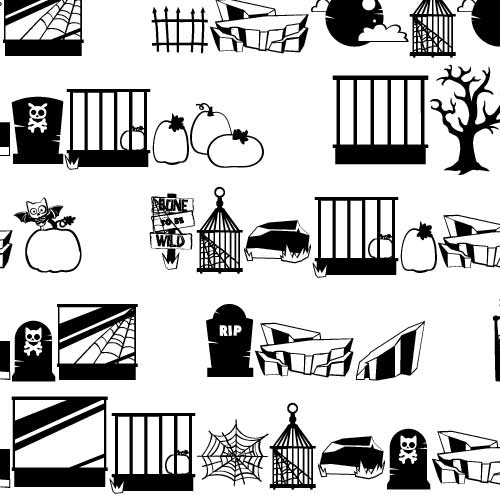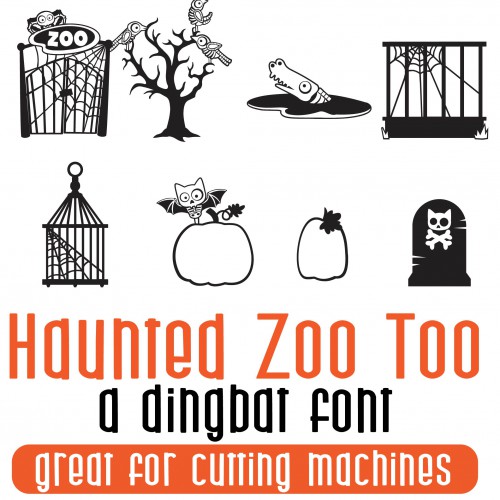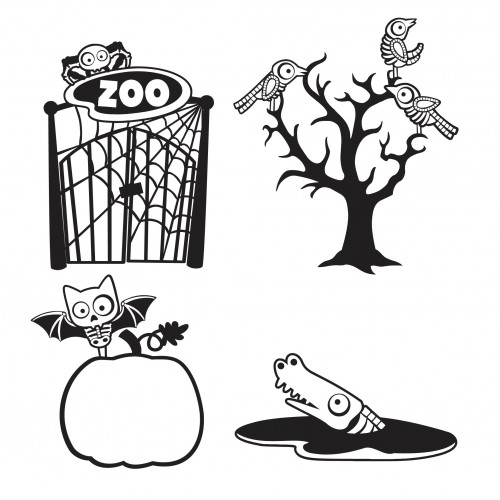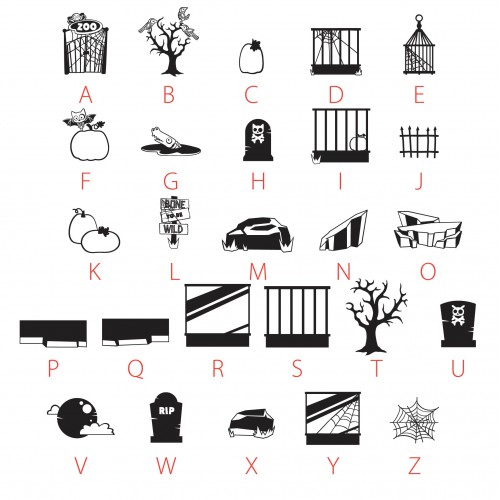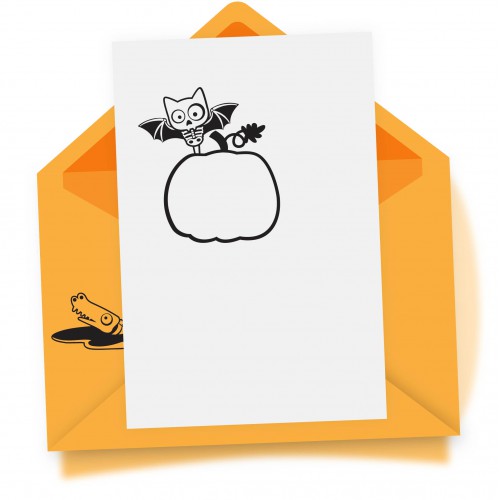
DB Haunted Zoo - Too - DB
Use this fun doodlebat which features 28 different images that can be used to build a haunted zoo for your spooktacular animals skeletons! With Perfect for cards, crafts, planner stickers, decor and more!